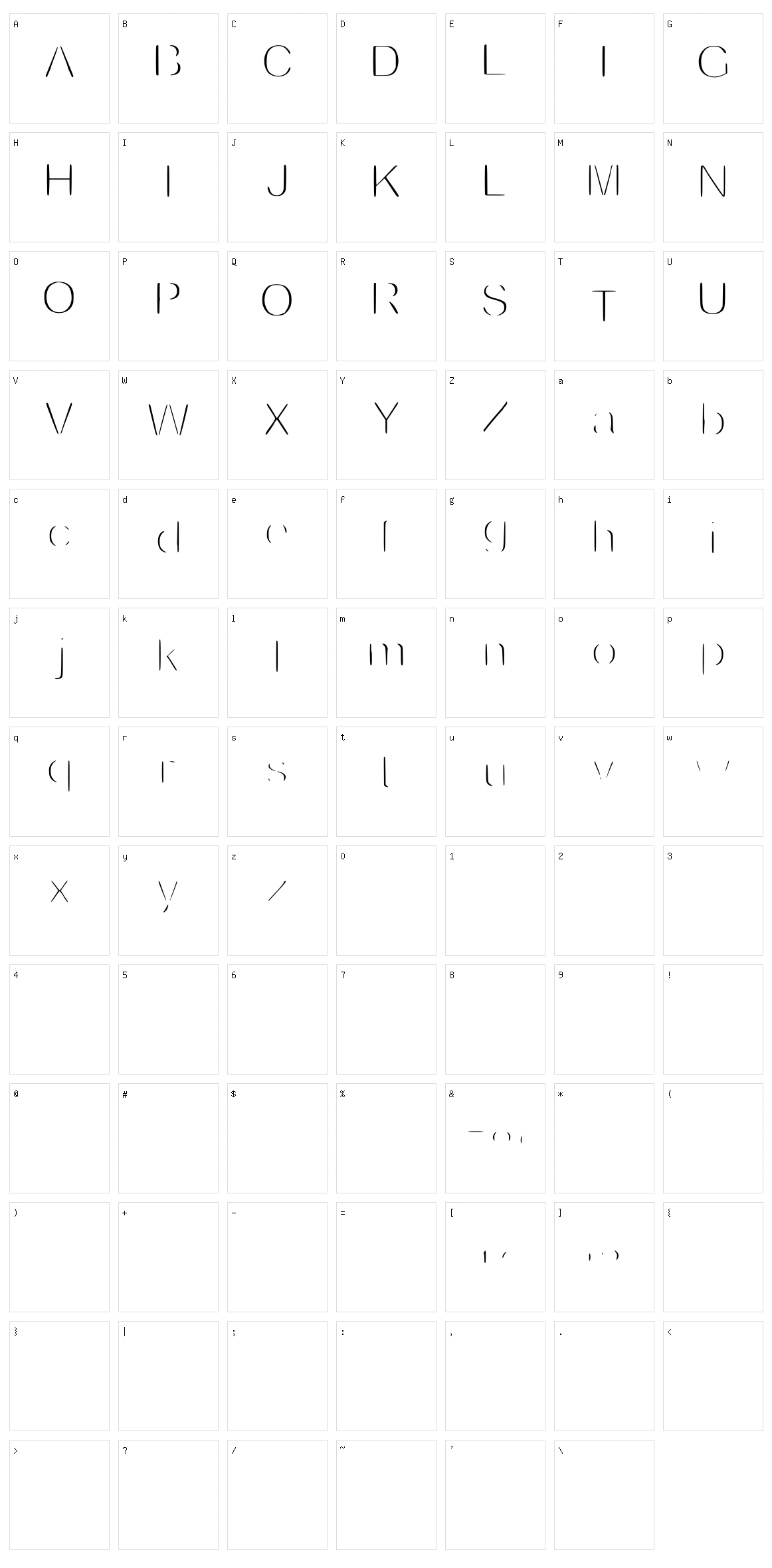
The free font Invisible is carefully designed by Aaron Underwood, showcasing a thoughtful balance of creativity and usability and falls under the Distorted font style. When you download the ZIP file, it contains only 7.5 KB of font files, making it lightweight and quick to download. Please review the license details below to understand permitted usage and distribution rights. If license information is not available, we recommend using this font for personal projects only or contacting the author directly for commercial usage permissions.